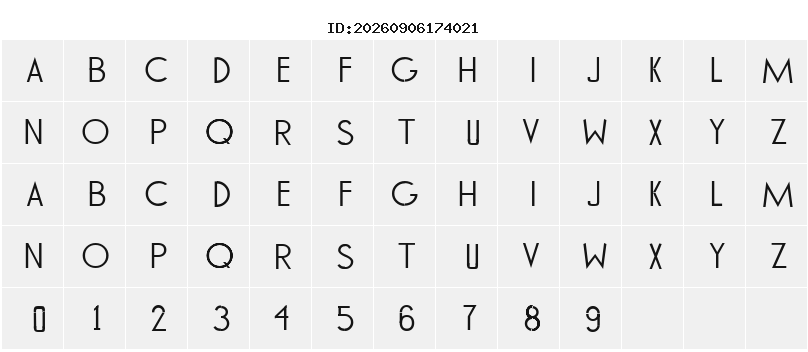
• Font Name: TOMMY HILFIGER AF
• Font ID: TOMMY HILFIGER AF
• Full Font Name: TOMMY HILFIGER AF
• PostScript Name: TOMMYHILFIGERAF
About TOMMY HILFIGER AF.ttf
TOMMY HILFIGER AF.ttf is a modern, elegant sans-serif font designed for ultimate readability and visual harmony. Perfect for branding, headlines, web design, and print materials.